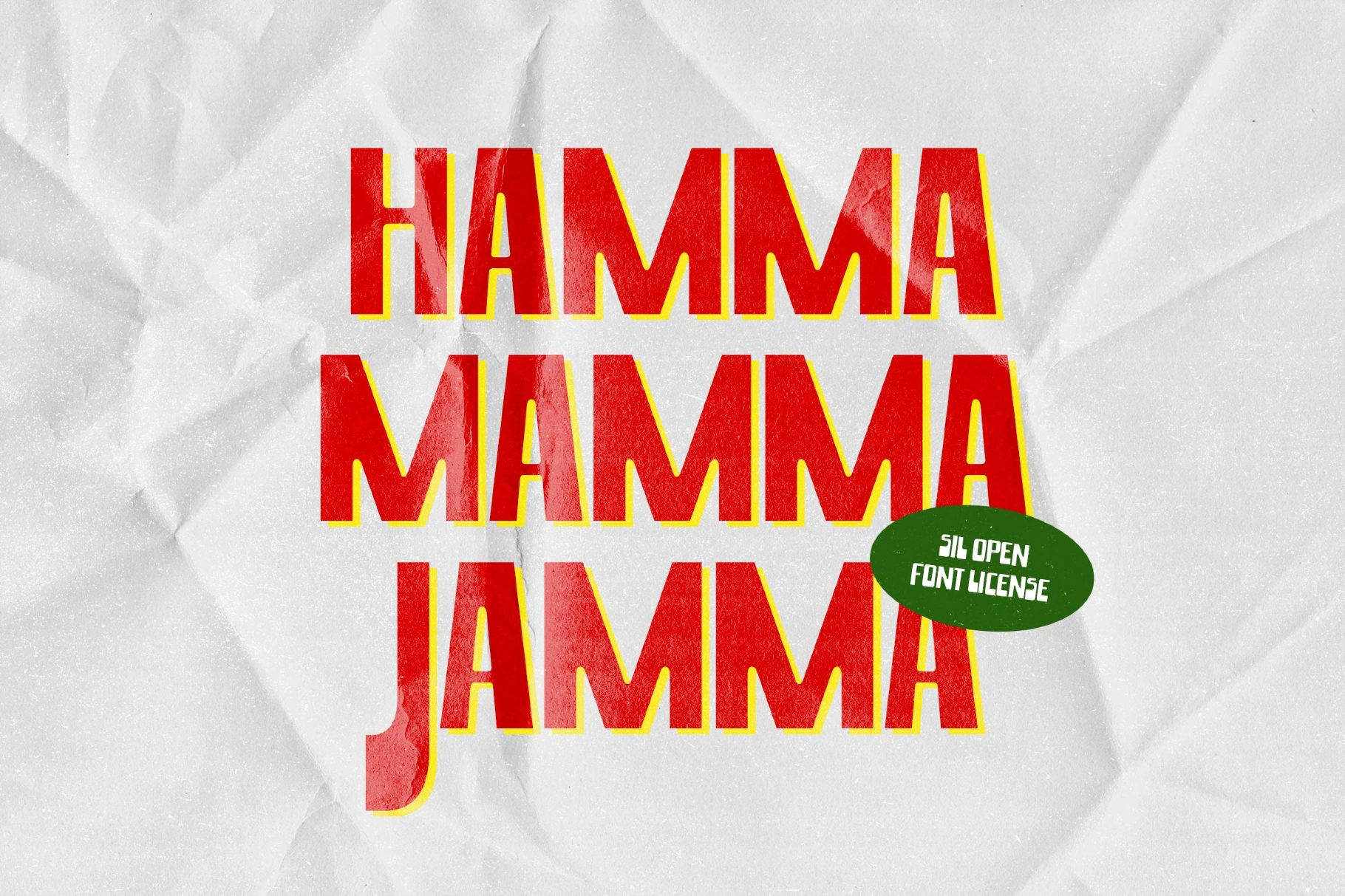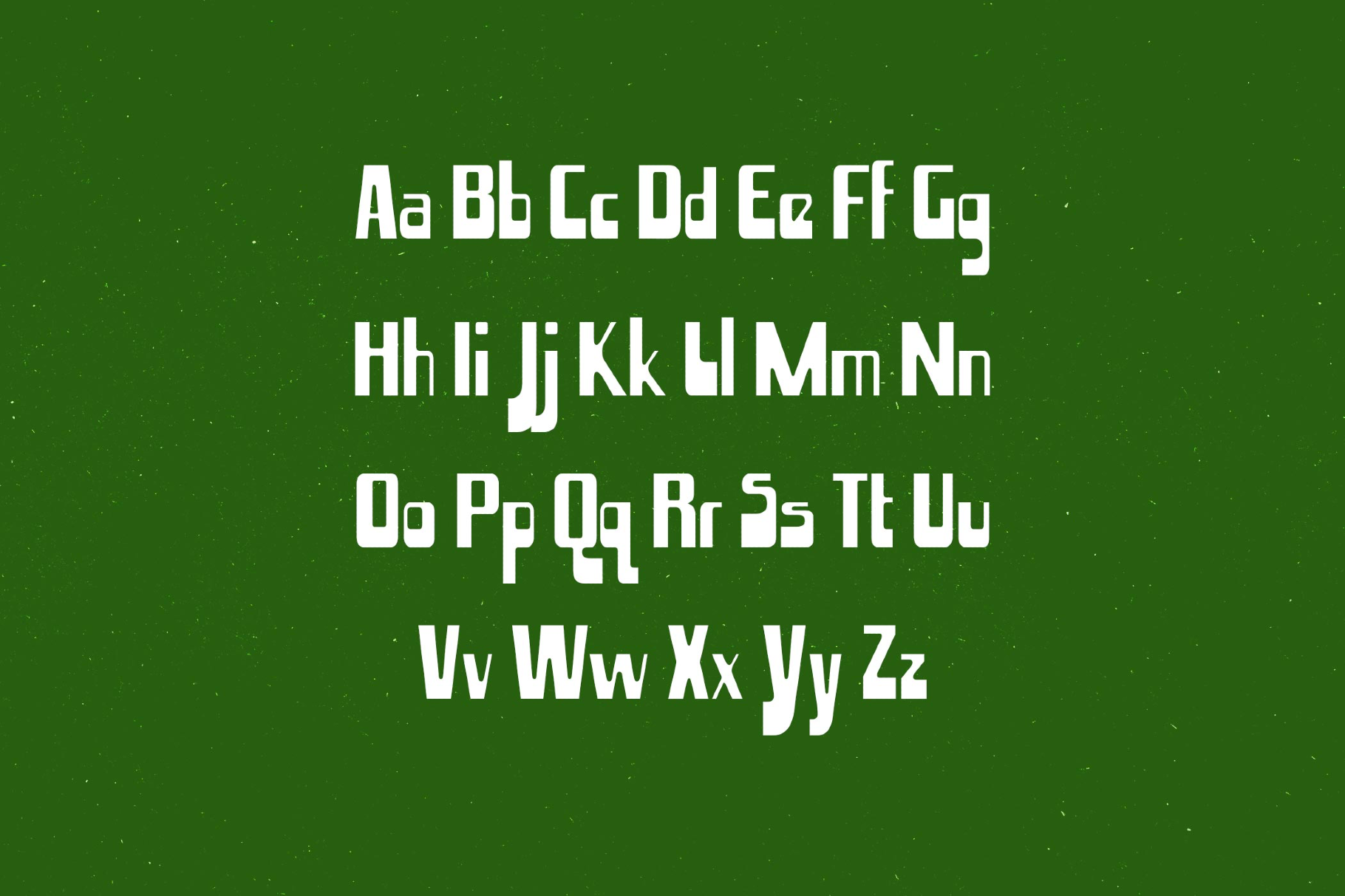
Hamma Mamma Jamma Font
Hamma Mamma Jamma
Hamma Mamma Jamma is a groovy summer font with the shaggy swagger of 1970s custom van murals, roller-rink flyers, and sun-baked boardwalk graphics, full of carefree vacation pulse. You can use it for poster headlines, beach event branding, music artwork, sticker designs, retro packaging, summer merch and social visuals.